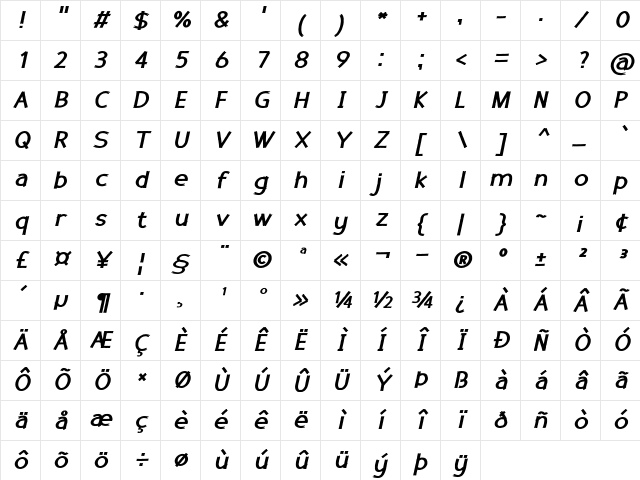
Kamp Killa Bold Italic
Design Context for Kamp Killa
Kamp Killa is a composed and adaptable typeface that performs quietly and consistently across a wide range of design contexts. The slanted form adds forward momentum and visual energy. Its bold stroke weight gives it real presence on the page.
Pro Tip: Use Kamp Killa for emphasis, pull quotes, and subheadings where its slanted energy can add rhythm to the layout.